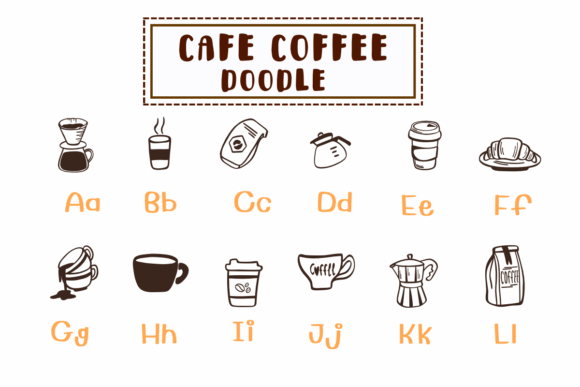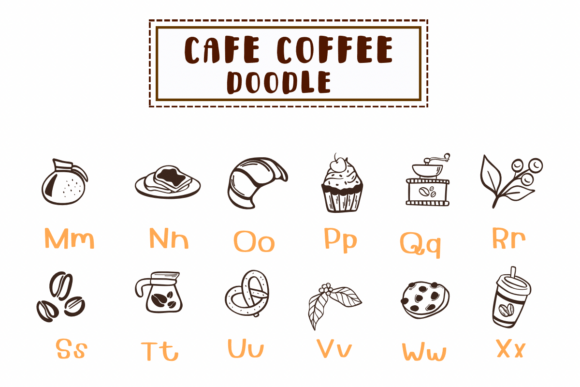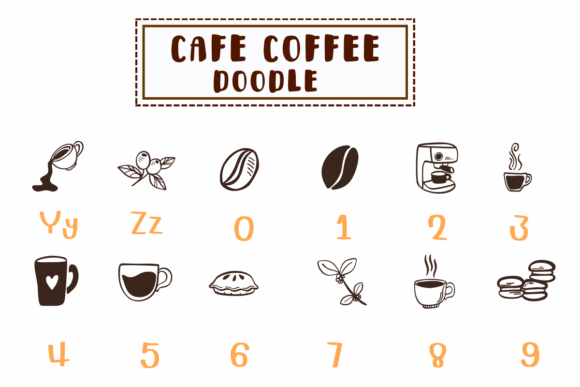
Cafe Coffee Doodle Font
About the Cafe Coffee Doodle Font
Discover the charm of Cafe Coffee Doodle Font. This font is a perfect blend of modern aesthetics and classic appeal. Cafe coffee doodle is a dingbats font with a delicious theme. This font can enhance your creative projects such as wedding invitations, DIY, crafts, decorations, logos, and many other creative ideas.
Its playful, hand-drawn style makes it ideal for branding projects related to coffee shops, bakeries, or other food-related businesses, as well as children’s books or craft projects. It excels in short headlines, logos, and decorative elements on packaging. However, its informal nature makes it unsuitable for body text or situations requiring high readability.
Consider pairing Cafe Coffee Doodle with a clean sans-serif font like Open Sans for body copy or a classic serif like Garamond for a more refined contrast. For a more whimsical feel, a script font with a similar level of informality could also work well.
The font’s overall personality is cheerful and approachable, conveying a sense of warmth and handmade charm. Avoid using it in contexts requiring professionalism or sophistication.